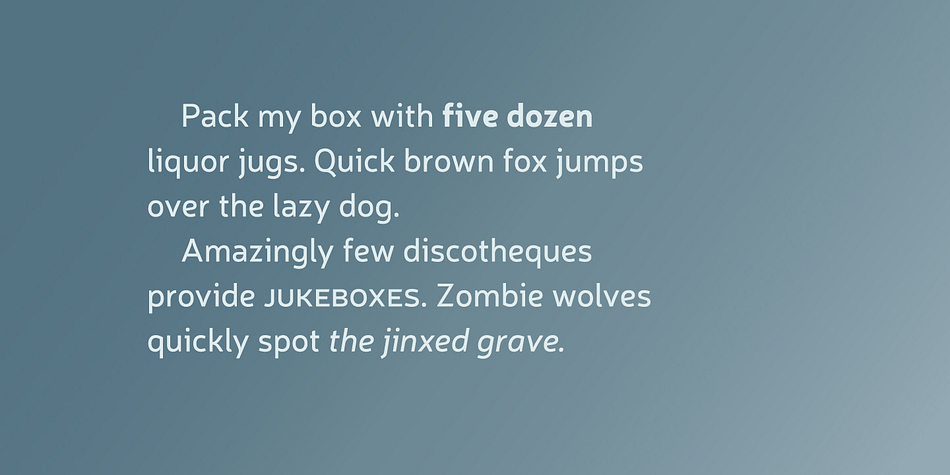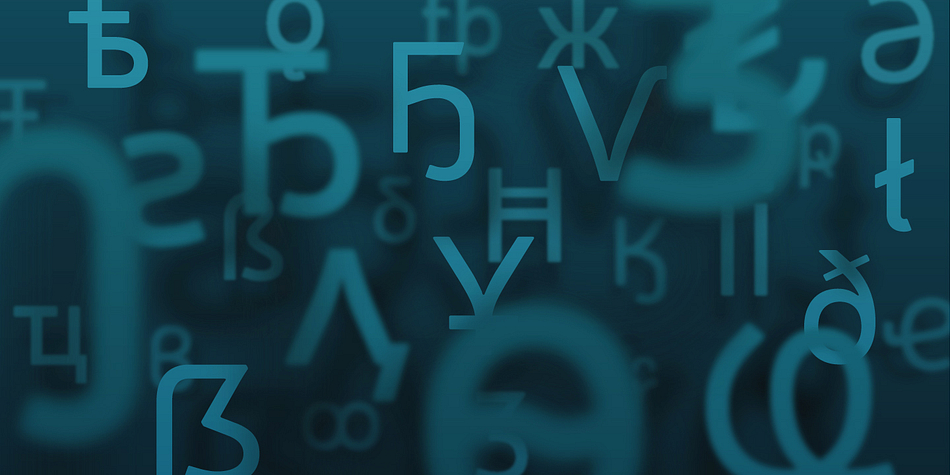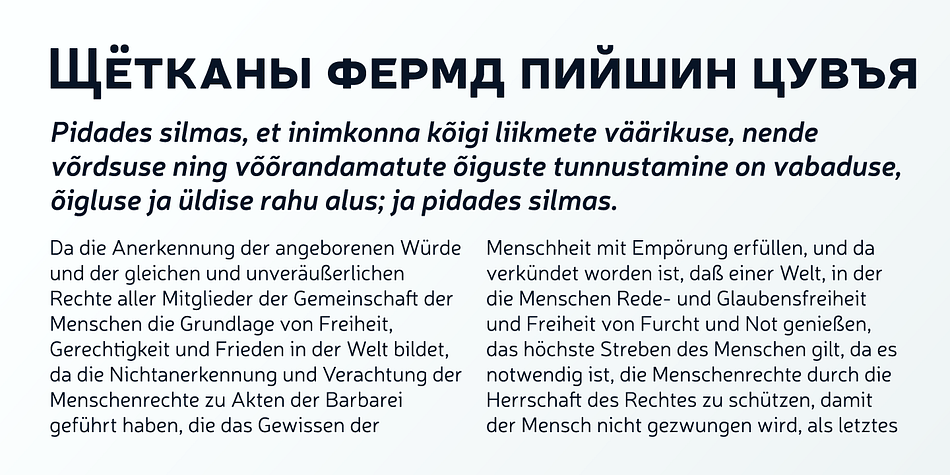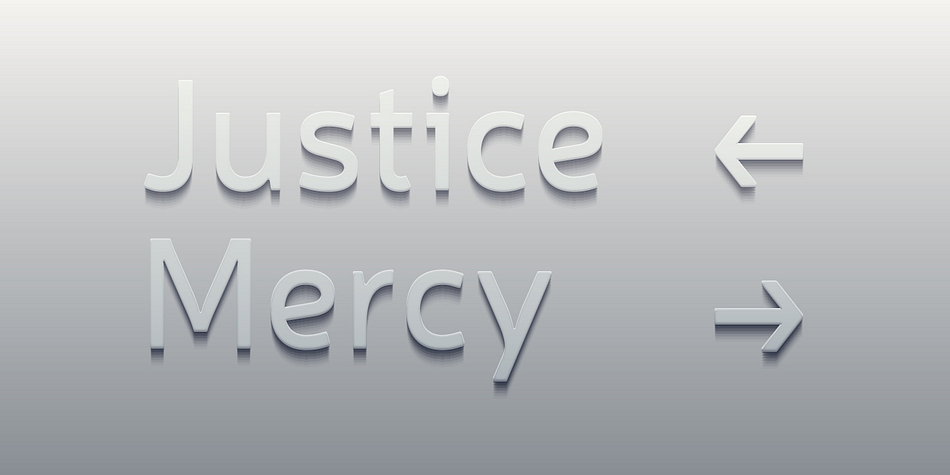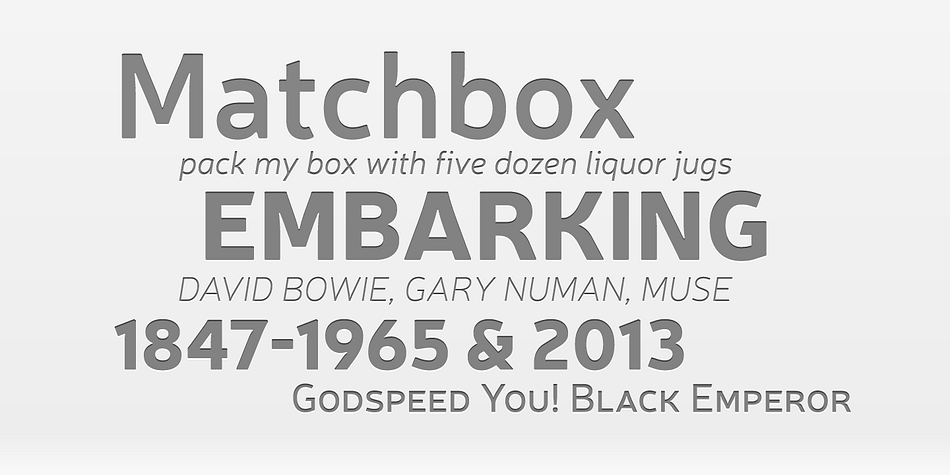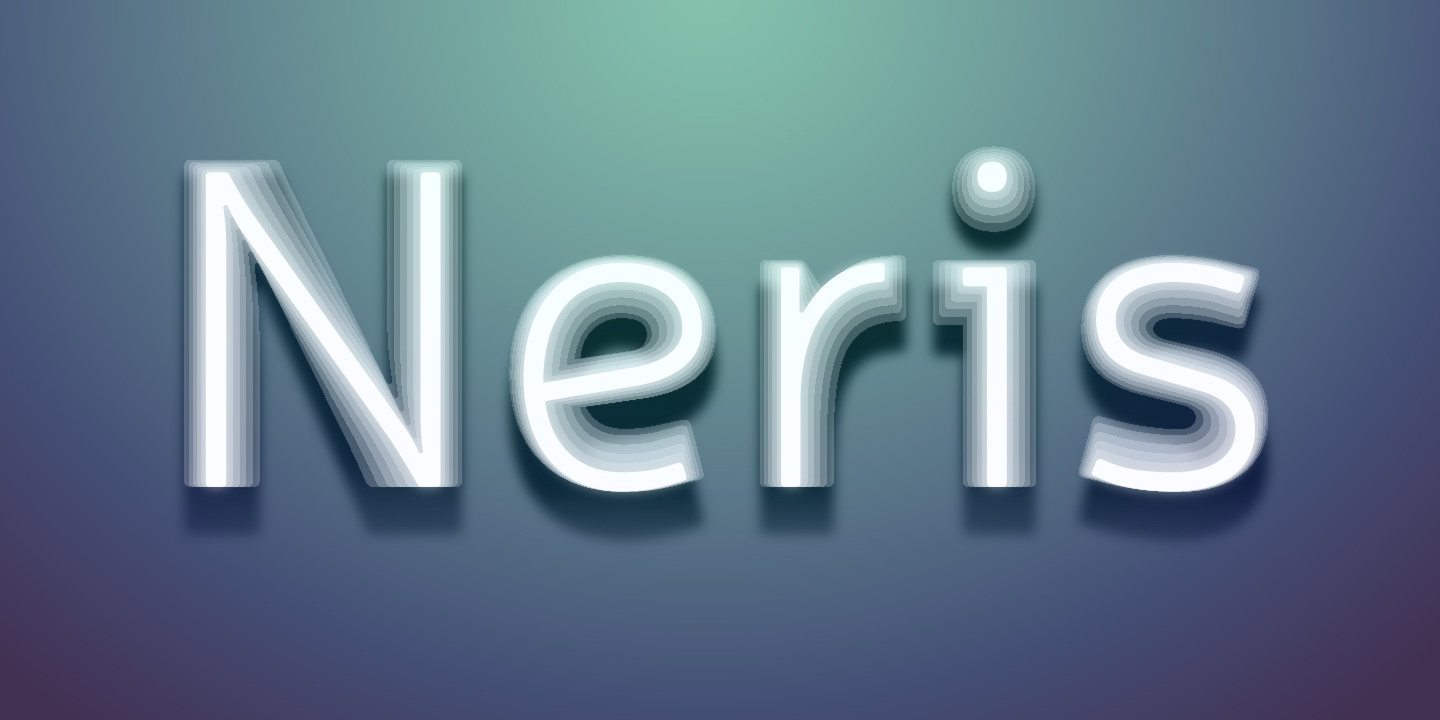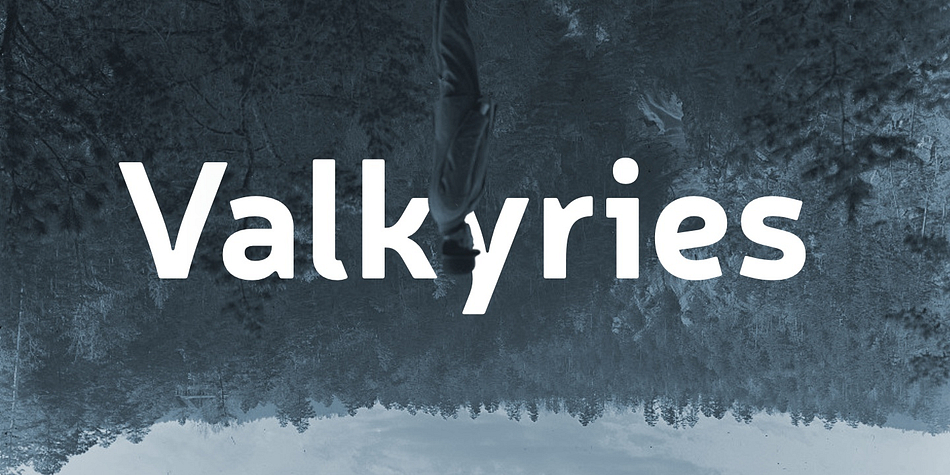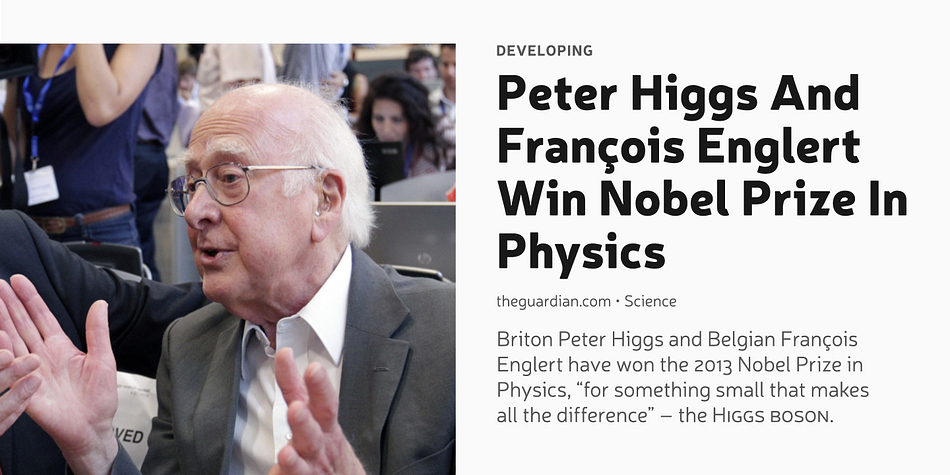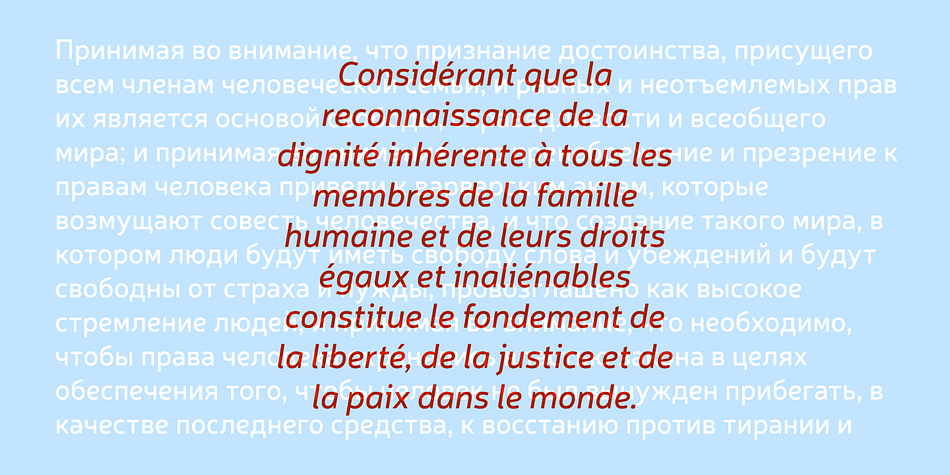
Neris is a sans serif font family. This typeface has twelve styles and was published by Eimantas Paskonis.
A display sans for one paragraph (or shorter) length text: quotes, openings, titles, etc. Sure, you could use it for body copy and get away with it, but that’s not where the typeface shines. The bigger - the better.
Neris is the name of my city’s river. While it doesn’t really translate into anything meaningful, it looks good in both Lithuanian and English while showcasing most of the distinct features: slanted /e, semi-serif /i, stylized ink traps, curved sharp joints.